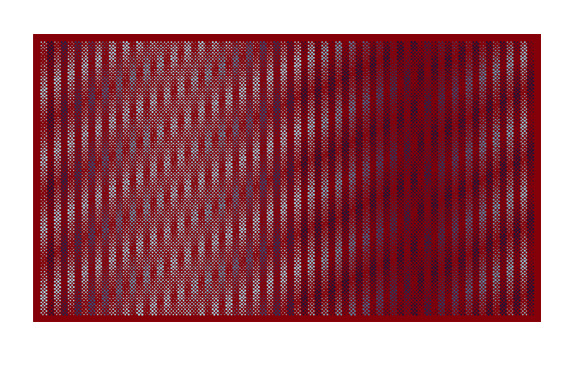
Allemande (Blue/Red)
From the Puzzler Prints series.
With Puzzler, Zuzana Licko revisits and expands upon some of her earlier forays into decoration and geometric constructions of abstract elements.
Licko created the Puzzler elements in digital font format, which she then used for composing these images.
Actual size detail from 42" x 28.5" print.